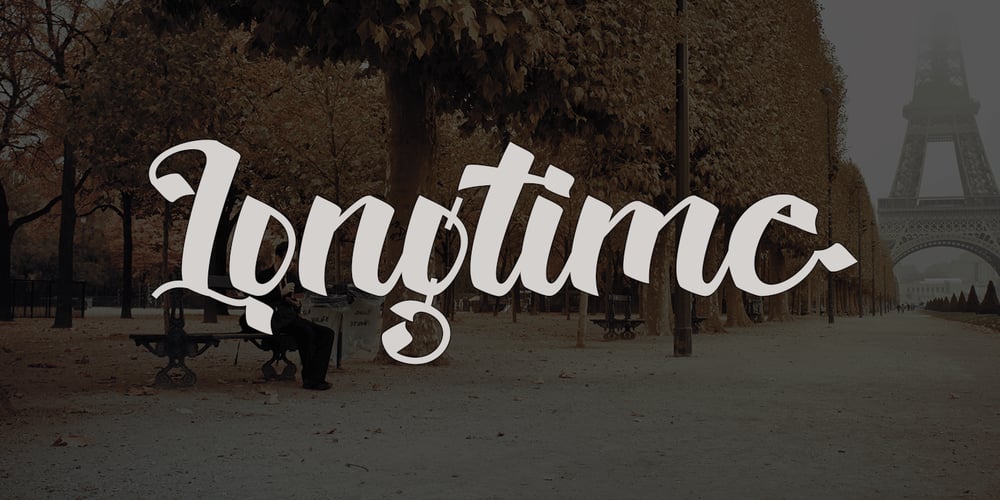
Longtime Font Family was designed by Muhammad Akbar and published by Sinfa. Longtime contains 1 styles and family package options. Longtime is drawn with thick font with a retro style and includes several swash characters. Longtime is suitable for product logos and labels, in cafes, restaurants, magazine titles, business cards, invitations, and product branding.